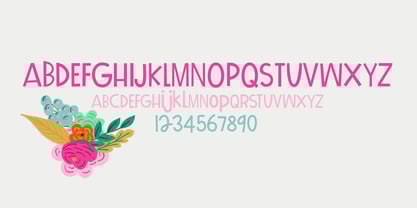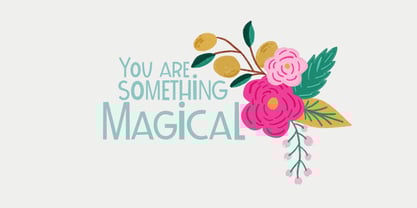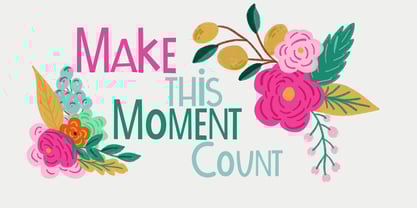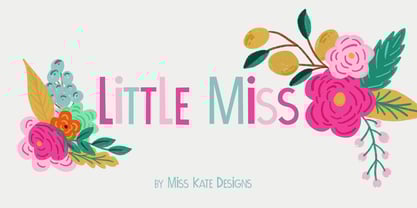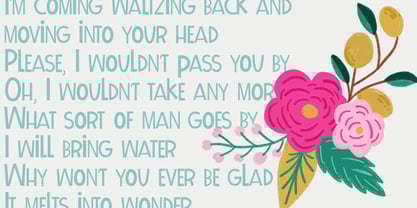
Little Miss Font
by Miss Kate Designs
Little Miss is a fun, whimsical font!
Foundry: Miss Kate Designs
Miss Kate Designs started out by me selling SVG cut files on my website. I am completely self taught! The more I became comfortable with Illustrator the more I started experimenting with lettering and font making. Now I have made dozens of fonts and have no plans to stop! I love being able to see type written in a font I've made, it never gets old. I hope you find something you like!